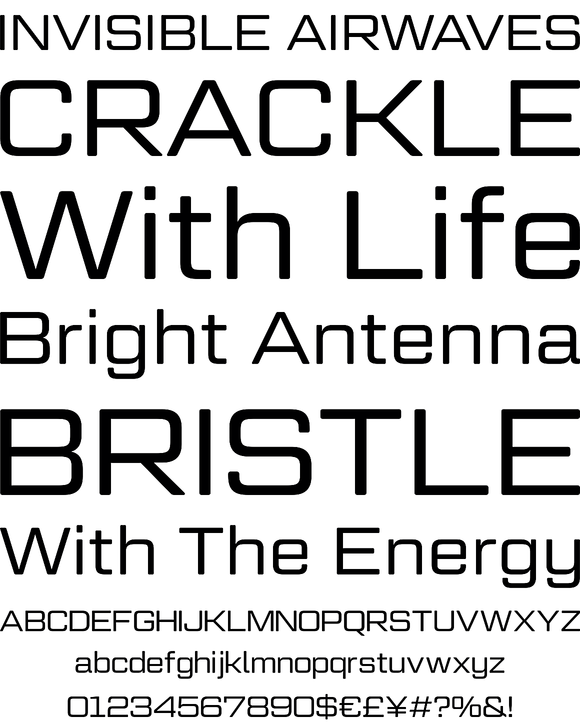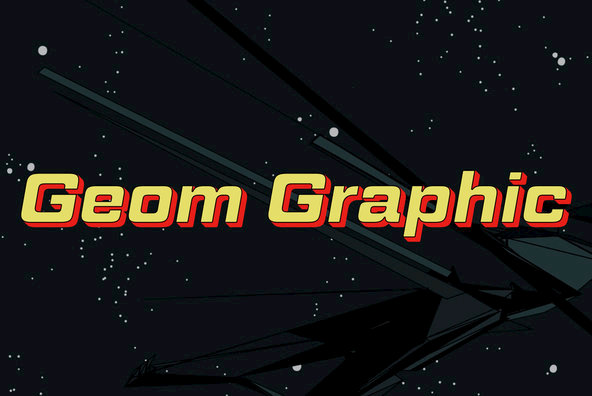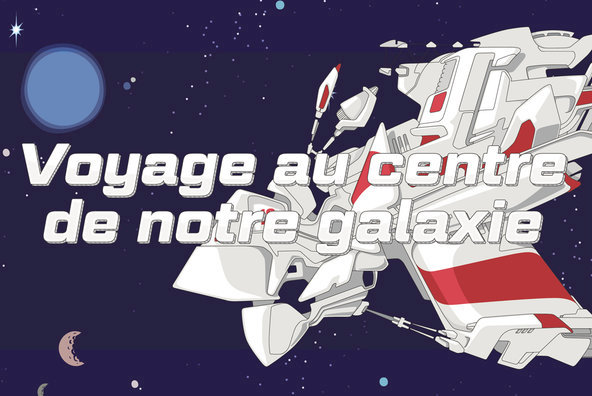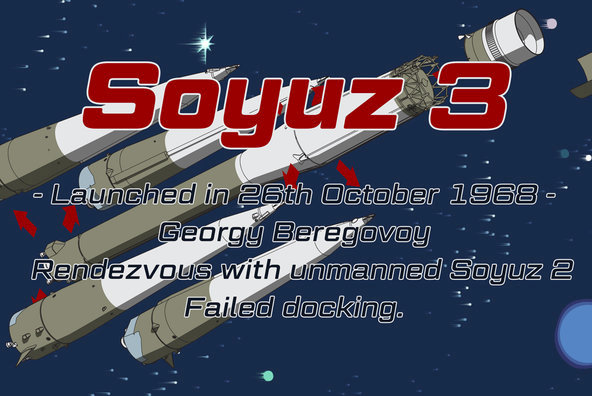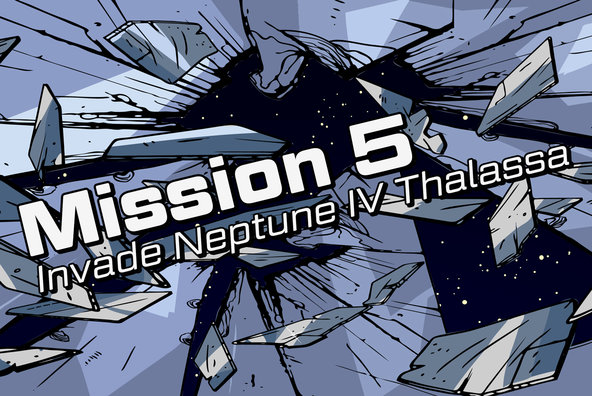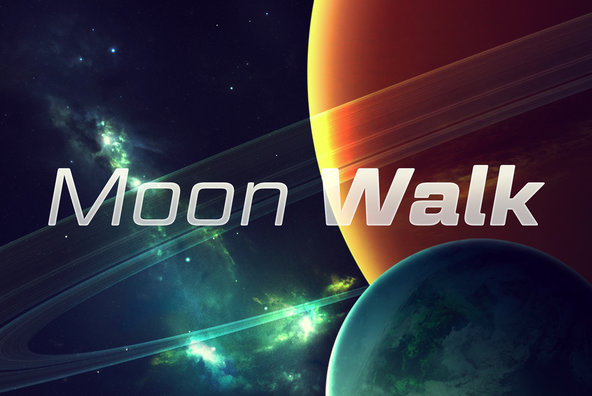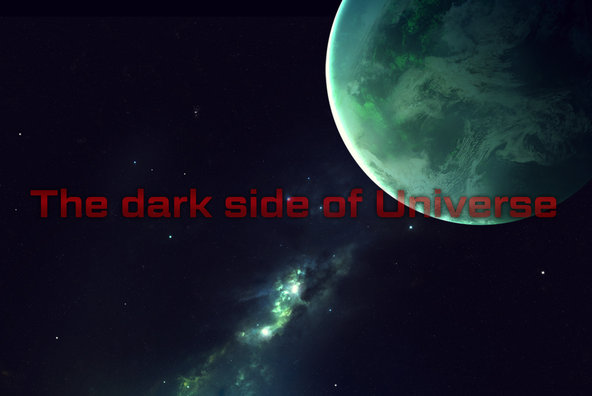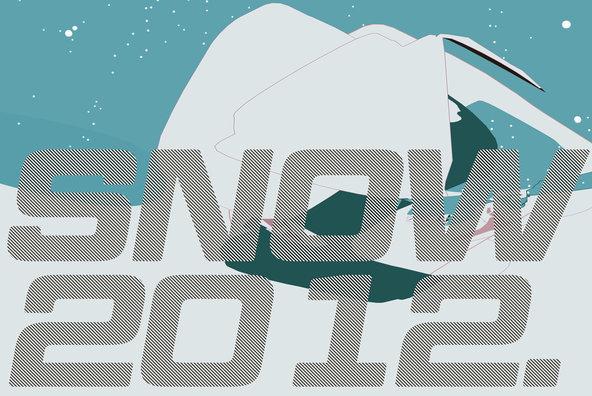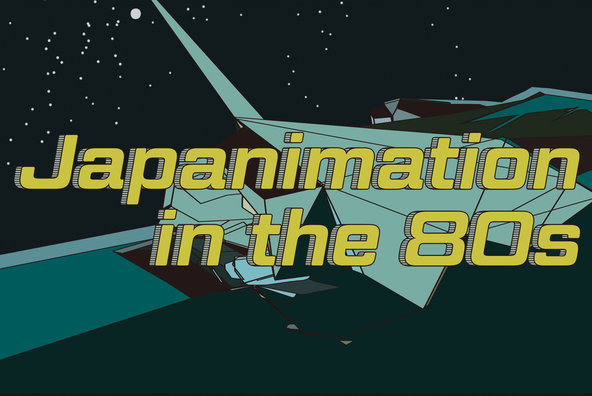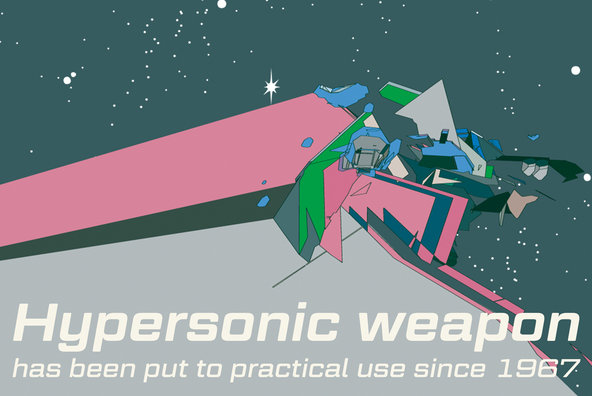
Geom Graphic
Foundry: Ryoichi Tsunekawa
Inspired by Japanese robot animations in 80s such like Gundam and Ideon. Geom Graphic is square geometric sans serif for wide range of usage. the family give an impression similar to Eurostile but this is more squared and geometric. The letterforms of Geom Graphic are designed slightly rounded to appear natural warm and retro. This family consisting of 4 weights with matching Italic with a wide range of languages covered is desiged targeting at use for futuristic product of game movie logo and so on.